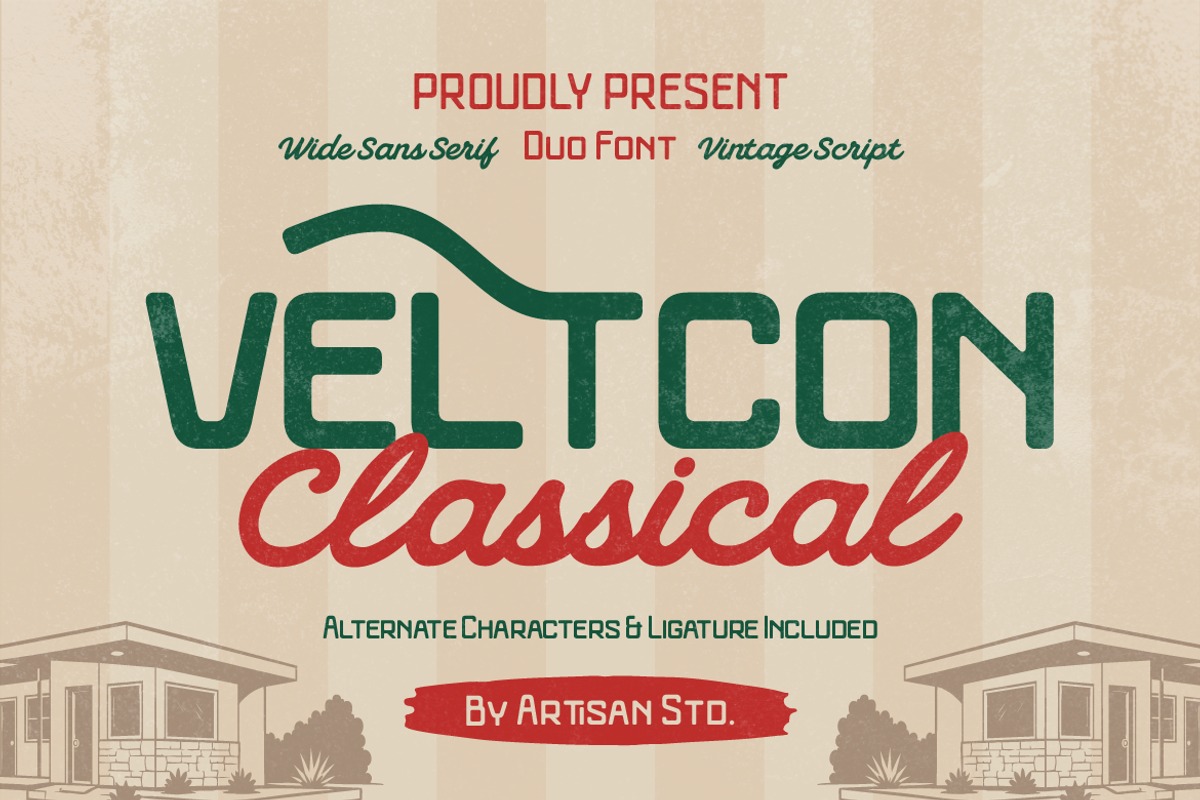
Veltcon – Classic Vintage Font
Veltcon – Classic Vintage Font is a premium-quality font developed to enhance your work with a polished, modern, and visually elevated look. Veltcon is a beautifully crafted classic vintage duo font that blends a clean wide sans serif with a smooth retro script. Inspired by old motel signage, vintage gas stations, and timeless Americana aesthetics, this font brings a warm nostalgic feel into modern design.
The sans serif style is bold, structured, and easy to read—perfect for strong headlines—while the script adds a natural handwritten touch that feels authentic and elegant. Together, they create a perfect balance between classic charm and vintage personality.
Designed with attention to detail, Veltcon comes with alternate characters and ligatures, allowing you to create more natural, stylish, and unique lettering compositions effortlessly.